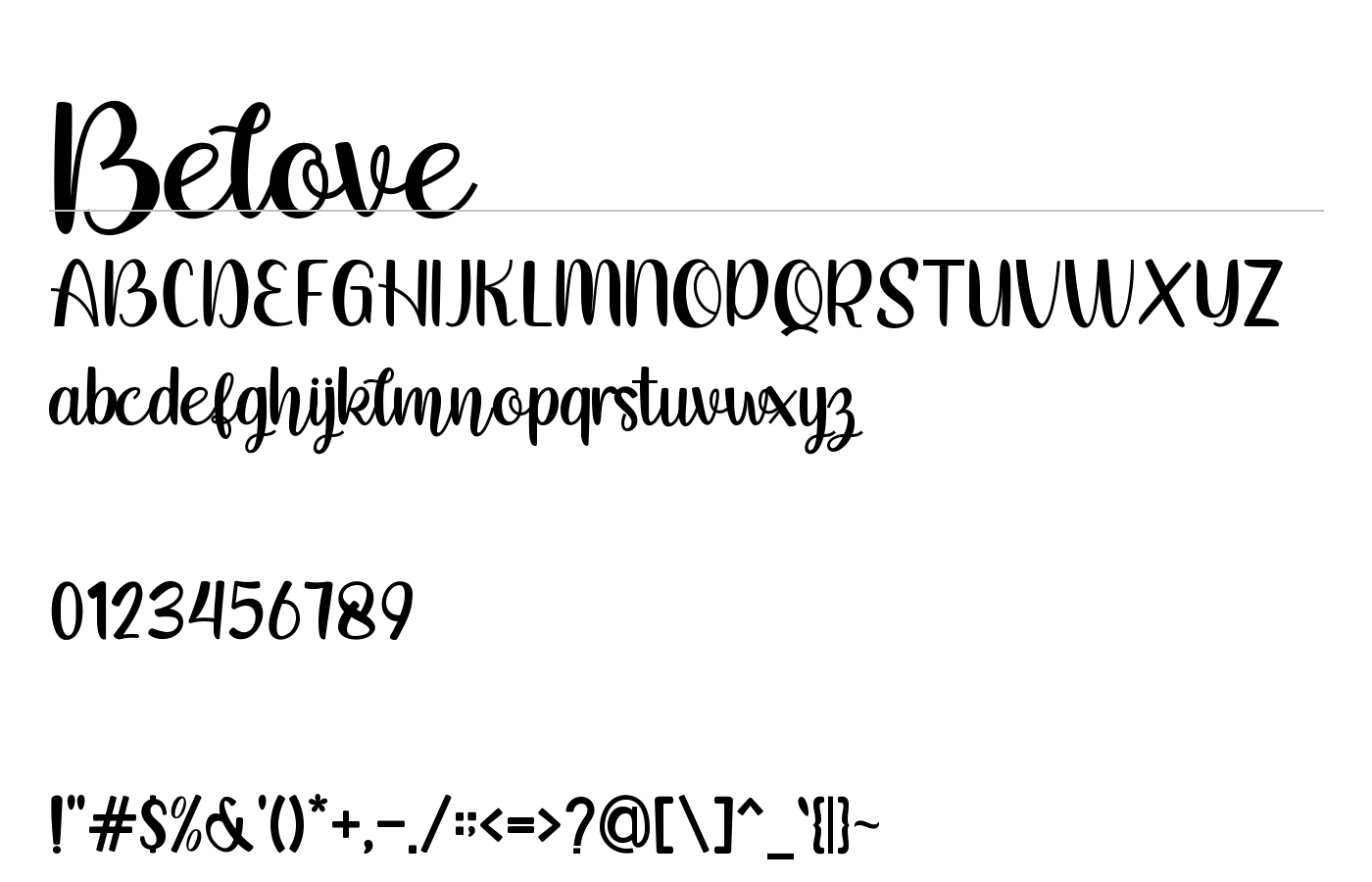
Belove is a playful sans serif font with a hand-drawn feel, featuring a balance of bold and slender strokes that create a lively and approachable look. Its quirky letterforms and lively curves make it perfect for fun, creative projects like branding, invitations, and casual headlines where a friendly, informal tone is desired. This font adds personality and charm while remaining clear and easy to read.
Belove Font
About Belove Font